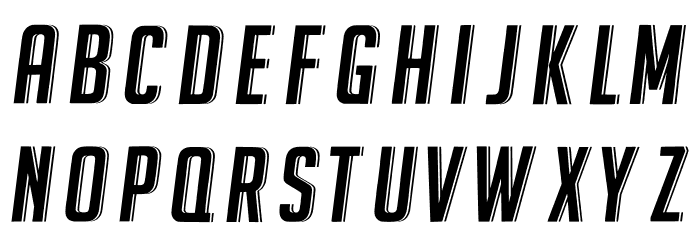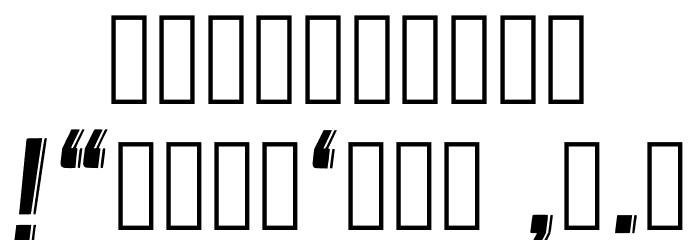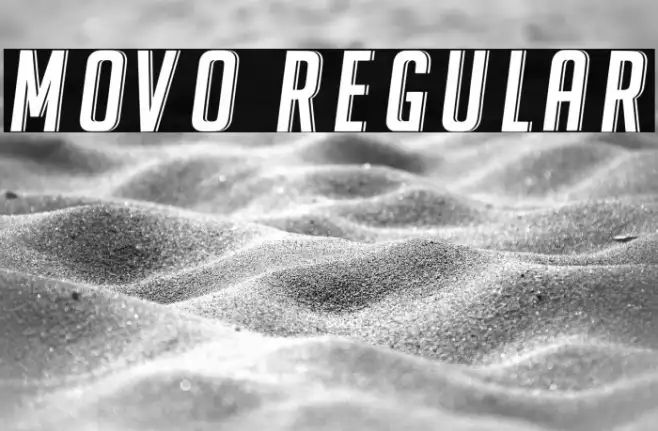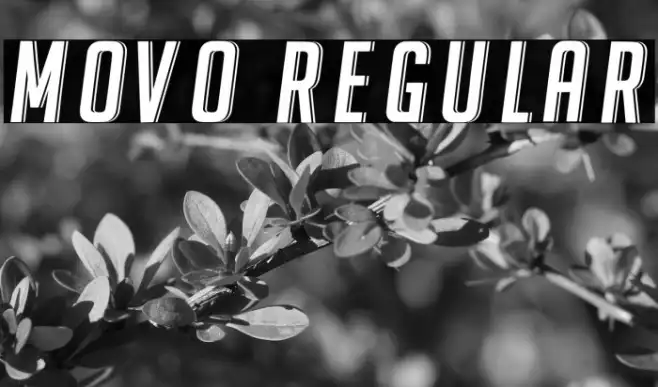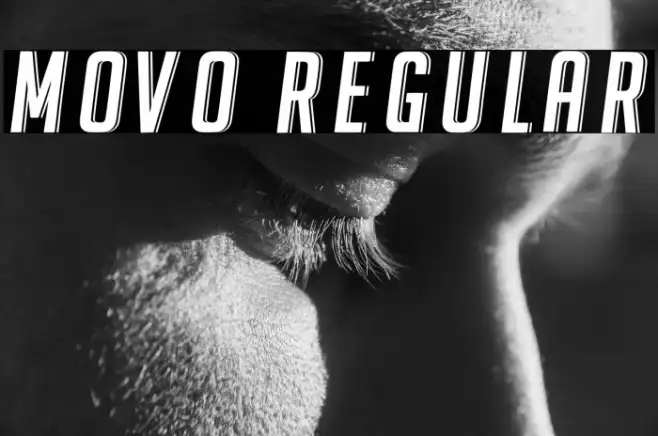
Movo Regular Font
This font features a bold and dynamic style with a strong emphasis on vertical lines and sharp angles. The uppercase letters are tall and narrow, giving a sense of height and energy. The lowercase letters maintain the same dynamic feel, with consistent line thickness and a slight slant that adds a sense of motion. The numbers and special characters are designed to match the overall aesthetic, ensuring a cohesive look across all text. The font's unique style makes it stand out, perfect for projects that require a modern and energetic feel.
A bold, dynamic font with tall, narrow letters and a modern, energetic style.
- Proposed Projects: Ideal for sports branding, dynamic posters, modern advertisements, and any project needing a bold statement.